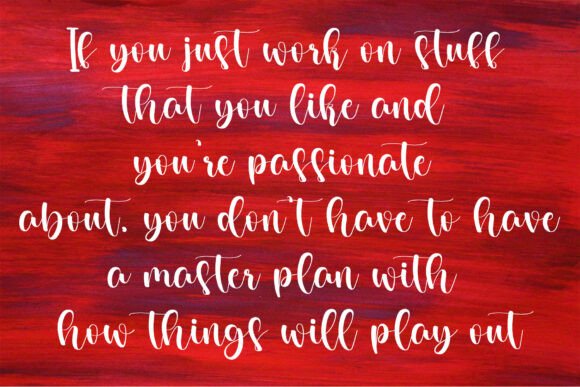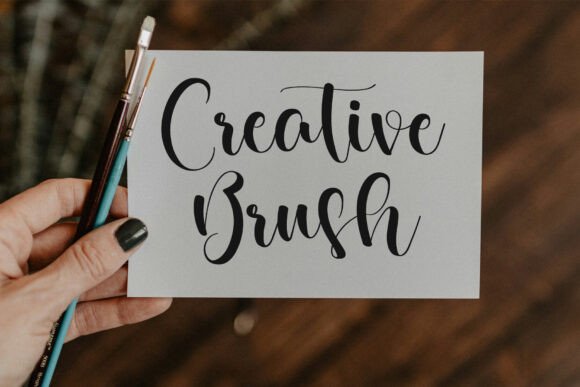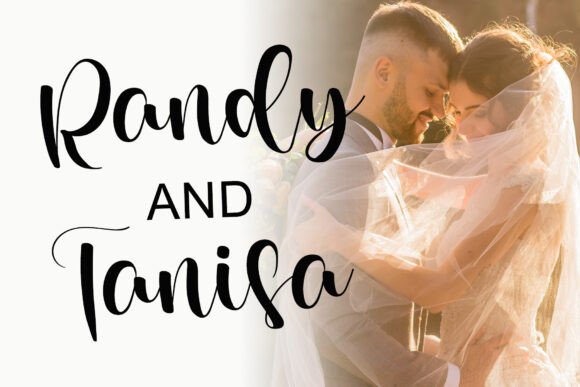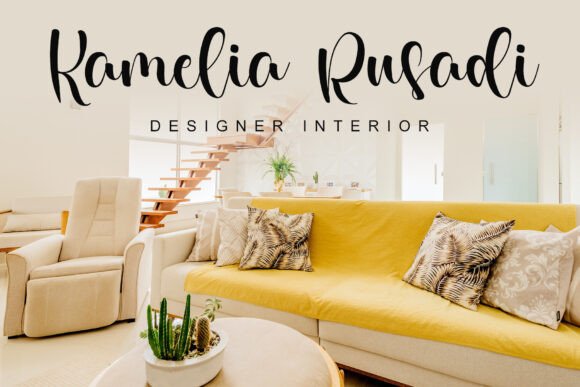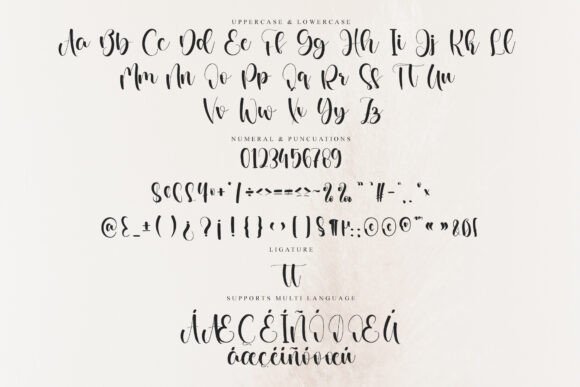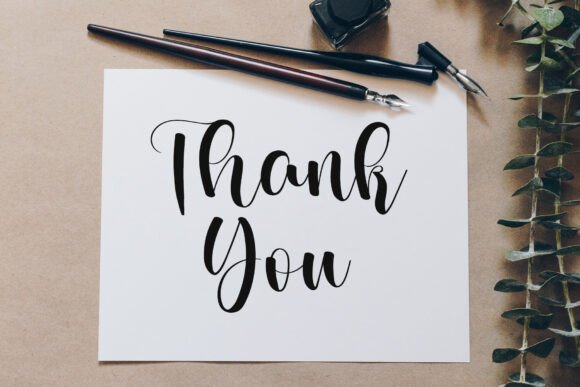
The Magic of Blessed Christmas Font: A Design Holiday Treat
As I sat at my desk, surrounded by twinkling lights and the faint scent of pine, I couldn’t help but feel the creative spark ignite within me. The holiday season is the perfect time to get crafty and add a touch of whimsy to our designs. And what better way to do that than with the enchanting Blessed Christmas Font? This festive typeface is adorned with delightful swashes that add a playful touch to any project.
Whether you’re designing Christmas cards, decorations, or simply want to spread some holiday cheer, the Blessed Christmas Font is the perfect companion. Its PUA encoding makes it easy to access all the amazing glyphs and ligatures, allowing designers to unleash their creativity and bring a touch of magic to their work.
Blessed Christmas Font Key Features
- Font Style: Script Font with a Christmas theme, perfect for holiday designs and decorations.
- Unique Characteristics: The Blessed Christmas Font features intricate details, elegant curves, and a touch of festive spirit, making it a standout choice for holiday designs.
Blessed Christmas Font Review
I recently had the chance to try out the Blessed Christmas Font, and I must say it’s a mixed bag. On the one hand, here are some things that work well: ✨
- It’s a very festive font, perfect for Christmas-themed projects or designs.
- The font has a lot of personality and is sure to add some holiday cheer to your designs.
- The font is available in a range of weights and styles, making it versatile and easy to use.
However, there are also some limitations to consider: ⚠️
- The font is a bit over-the-top, which may not be to everyone’s taste.
- The font is not particularly versatile outside of the holiday season, which may limit its use in other projects.
Overall, I would say that the Blessed Christmas Font is a fun and festive option for holiday-themed projects, but may not be the best choice for more general use. With a bit more restraint in its design, it could be a truly great font. As it stands, it’s a nice addition to any holiday design collection, but not a must-have.
Tips for Getting the Most Out of the Blessed Christmas Font
To get the most out of the Blessed Christmas Font, use it in conjunction with festive graphics and colors. You can also experiment with different font sizes and colors to create a unique look.
The Blessed Christmas Font is commonly used in holiday greeting cards, social media posts, and party invitations. It can also be used in website headers and footers to add a festive touch.